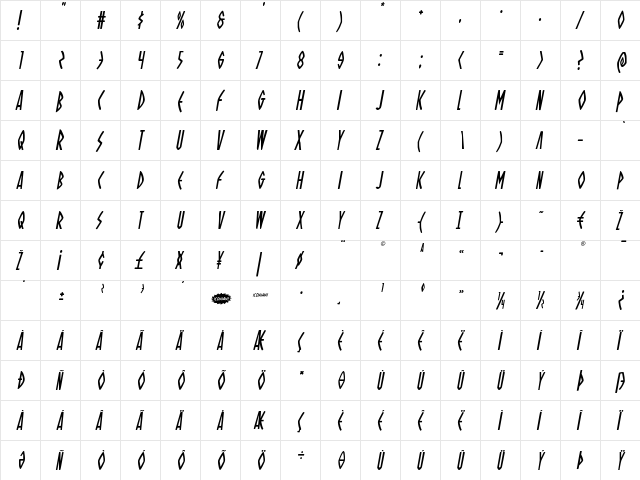
Oh Mighty Isis Condensed Italic Font Preview
Design Context for Oh Mighty Isis Condensed Italic Typeface
Oh Mighty Isis Condensed Italic takes a measured approach to typography — its balanced proportions and neutral character make it a reliable workhorse for both digital and print work. The slanted form adds forward momentum and visual energy. Its narrow stance lets it pack a punch even in space-constrained designs.
Pro Tip: Try Oh Mighty Isis Condensed Italic for annotation and caption copy alongside an upright companion — the contrast in angle creates a dynamic but ordered typographic system.